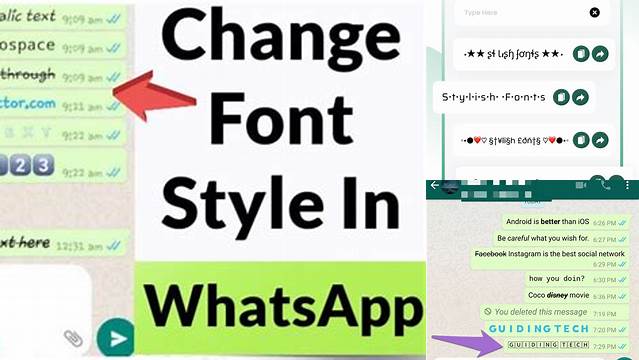
WhatsApp Font Magic: Styles You Gotta Know!
Hey there, font fanatics! Ever wished your WhatsApp chats could pop with a little more pizzazz? Tired of the same old boring font? Well, you're in luck! This guide is your ultimate cheat sheet on how to write in different fonts in WhatsApp. We're diving deep into the coolest font tricks and tips to level up your messaging game. Get ready to impress your friends, family, and colleagues with your newfound font superpowers. Let's get started and make those chats shine!
H2: The Bold and the Beautiful: Mastering Bold Text in WhatsApp
Alright, guys, let's kick things off with a classic: bold text! It's the simplest font style to achieve and the perfect way to emphasize important words or phrases in your WhatsApp messages. Using bold is like giving your words a little muscle, making them stand out from the crowd. It's super easy to do, and you can use it on any device – Android or iOS, it doesn't matter. The bold text is a great way to convey importance without shouting, which is always a plus! Plus, using bold text also makes your messages easier to skim, because the important parts will jump out at the reader. Think of it as a visual cue, guiding your friends and family through your message.
To use bold text, you need to add a special character before and after the words you want to bold. This special character is the asterisk (*). For example, if you want to write the word “Hello” in bold, you would type it like this: Hello. See? Simple. Once you send the message, the asterisks will disappear and “Hello” will appear in bold.
This feature is built directly into WhatsApp, so you don’t need any extra apps or complicated steps. It works universally, meaning anyone you're chatting with, regardless of their phone or WhatsApp version, will be able to see your bold text. This means that you can start using this trick right away with friends, family, and even coworkers. So go ahead, spice up your messages and make your words pop. Don't be shy, it's a very simple and effective way to add emphasis to your message, and you’ll be amazed at the difference it makes. Try it out, experiment, and have fun with it!
H2: Italicize Your World: Adding Emphasis with Italics in WhatsApp
Next up, let’s explore the wonderful world of italic text in WhatsApp! Italics are excellent for conveying thoughts, feelings, or any type of emphasis you might want to convey. Think of italics as giving your words a little whisper, making them feel more intimate or expressive. It's super easy to create italics, and it's another basic formatting trick that will instantly add more personality to your messages. Using italics allows you to show your personality and gives you so much more control over the look and feel of your texts.
To italicize text in WhatsApp, you use the underscore character (_). Place an underscore at the beginning and end of the word or phrase you want to italicize. For instance, to write the word “Thank you” in italics, you’d type Thank you. When the message is sent, the underscores will disappear, and the text will magically appear in italics. Easy peasy! Just like bold text, this feature is built into WhatsApp itself, so there's no need for any special apps or complicated workarounds. It works on any device, and your contacts will see the italics, regardless of their phone or WhatsApp version. Using italics is a great way to add a dash of flair to your messages, and it can give you a wide variety of options when talking with your friends, family, and coworkers.
Try using italics for book or movie titles, to emphasize a thought or to add a bit of humor to your texts. Italics give your texts that extra layer of meaning and help make your messages visually interesting. So go ahead, start experimenting with italics and see how it elevates your messaging game. You’ll be surprised how much personality it adds to your everyday chats.
H2: Strike a Pose: Using Strikethrough Text in WhatsApp
Let’s talk about strikethrough text. This one’s all about crossing things out. Strikethrough is perfect for conveying corrections, showing that something has been removed, or for adding a bit of humor. You can use strikethrough text to add a layer of fun and engagement to your chats. Maybe you made a mistake and want to correct yourself, or you want to indicate that a certain piece of information is no longer accurate. It's a great tool for adding clarity and emphasis. It's a fun way to add visual interest to your messages, and it also helps you to stand out from the crowd.
To create strikethrough text in WhatsApp, you'll use the tilde symbol (~). Place this symbol before and after the word or phrase you want to strike through. For example, to strikethrough the word “wrong”, you’d write ~wrong~. When you send the message, the tildes vanish, and the word “wrong” will appear with a line through it. Just like bold and italics, this feature is directly built into WhatsApp, meaning that you don't need any extra apps. It is compatible with all devices, and anyone you are talking to will see the strikethrough. This makes your chats easier to follow, and it also adds a little touch of visual fun. So, experiment with this feature and make your texts stand out!
H2: Font Combinations: Mixing and Matching WhatsApp Text Styles
Alright, font enthusiasts, now let's get creative and combine those styles! Using a combination of font styles gives you incredible control over your messages, and it can really enhance the meaning and impact of your texts. Think about mixing bold, italics, and strikethrough to create different levels of emphasis and visual interest. It's all about making your message clear, engaging, and fun to read! Mixing and matching allows you to create visually appealing texts that are easy to understand, and they add a touch of professionalism to your messages.
H2: Font Generators: Third-Party Apps for WhatsApp Font Styles
Now, let's step it up with font generators. If you're looking for more creative font options, there are plenty of third-party apps available. These apps let you generate text in various styles that aren't directly supported by WhatsApp. It's all about expanding your font horizons and finding the perfect look for your messages! Some apps will convert your text into a different format, and then you can simply copy and paste it into WhatsApp. This will expand your font options and allow you to have even more freedom in your text messaging.
One popular app is